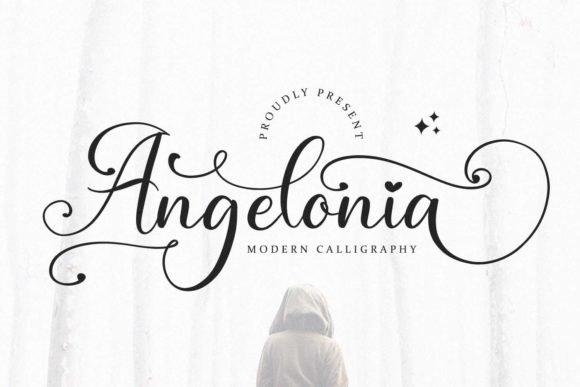
The Perfect Font for the Perfect Moment
Have you ever been sitting at your desk, staring at a blank page, and suddenly the perfect font pops into your mind? It’s like a spark of inspiration that sets your creative juices flowing. For me, that font is Angelonia Font – a thin, elegant script that makes everything it touches feel like a work of art.
Angelonia Font is designed to add a touch of sophistication and whimsy to any design project. Whether you’re creating wedding invitations, beautiful stationery, or eye-catching social media posts, this font is sure to make a statement. Its PUA encoding makes it easy to access all the glyphs and swashes, giving you complete control over your design.
As a designer, you know how valuable a great font can be. Angelonia Font is a game-changer, offering a level of elegance and refinement that’s hard to find in other fonts. With its versatility and ease of use, it’s no wonder that Angelonia Font has become a favorite among designers.
Key Features of Angelonia Font
- Font Family: Angelonia
- Unique Characteristics: Elegant, cursive script with a touch of whimsy, perfect for invitations, wedding stationery, and other special occasions
Angelonia Font Review
Overall, I’m quite impressed with the Angelonia font, and I think it has a lot of potential for creative projects. ✨ Here are some of its strengths:
- Unique design: Angelonia stands out from the crowd with its distinctive, elegant style, making it perfect for those who want to add a touch of sophistication to their work.
- High-quality typography: The font is crisp, clear, and well-structured, ensuring that your text will be easy to read and understand.
- Flexibility: With a range of weights and styles available, you can experiment with different looks and moods to suit your creative vision.
However, like any font, Angelonia has its limitations: ⚠️
- Limited language support: Unfortunately, the font doesn’t support a wide range of languages, which might be a drawback for some users.
- Not ideal for body text: While Angelonia looks stunning in headings and titles, it might be too ornate for large blocks of body text, which could lead to readability issues.
Overall, I think Angelonia is a great choice for designers and artists who want to add a touch of elegance to their work. With a little creativity and restraint, you can get the most out of this beautiful font.
Tips for Getting the Most Out of Angelonia Font
Use Angelonia Font for headings and titles to add a touch of elegance and sophistication to your designs. Experiment with different font sizes and styles to create visual interest. Pair Angelonia Font with other fonts to create a unique and harmonious typography.
Angelonia Font is ideal for use in wedding invitations, baby shower invitations, and other special occasion invitations. It’s also suitable for use in branding and marketing materials, such as business cards, brochures, and websites.
Alternatives to Angelonia Font
Great Vibes Font is a modern script font that is ideal for creating a friendly and approachable atmosphere. It is a great choice for use in branding, packaging, and advertising materials. Great Vibes Font is similar to Angelonia Font in its playful and whimsical feel, but it has a more relaxed and casual tone.
Alex Brush Font is a beautiful, elegant script font that is perfect for creating a sophisticated and refined atmosphere. It is a great choice for use in luxury branding, high-end packaging, and formal invitations. Alex Brush Font is more formal and elegant than Angelonia Font, but it shares a similar level of sophistication and refinement.